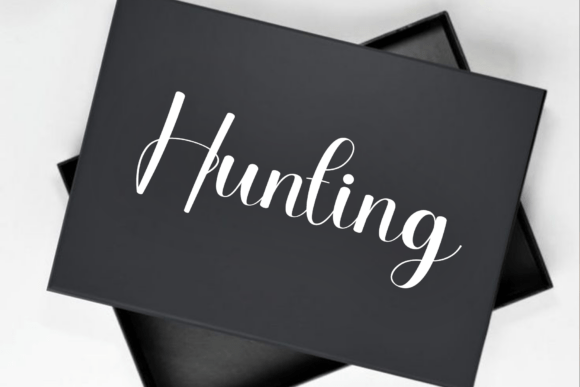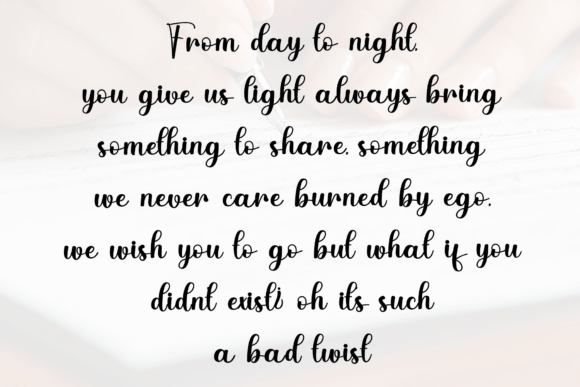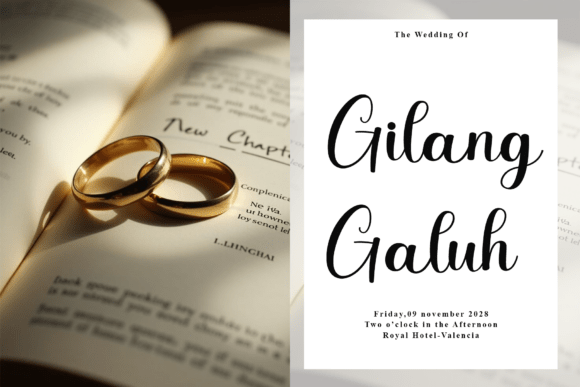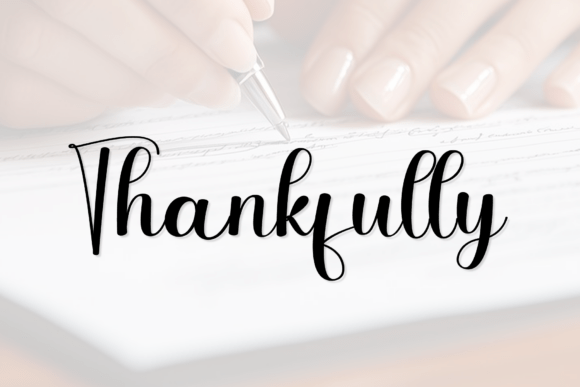
Introduction to Signatur Engagement Font
As a designer, there’s no thrill quite like landing on the perfect font for your creative project. It’s that moment when all the pieces fall into place, and your vision takes shape. You’ve spent hours scouring design resources, searching for the perfect combination of style and sophistication. And then, you stumble upon it – the Signatur Engagement Font.
This elegant script font is a game-changer for designers, offering a unique blend of calligraphic flair and organic charm. Its sweeping, looping ascenders create a sense of customized artistry that’s hard to find in other fonts. Whether you’re working on a high-end lifestyle marketing campaign or designing packaging for a boutique product, the Signatur Engagement Font is sure to elevate your design to new heights.
Key Features of Signatur Engagement Font
- High-quality, professional font designed for creative projects, including wedding invitations, event branding, and more.
- Transparent background, allowing for seamless integration with your design and minimizing the risk of unwanted background elements.
- Includes a range of font styles, from elegant and sophisticated to playful and whimsical, ensuring you find the perfect fit for your project.
- Perfect for use in digital and print designs, including social media graphics, business cards, and marketing materials.
Honest Review: Signatur Engagement Font
I recently had the chance to work with the Signatur Engagement Font, and I must say it’s been a game-changer for my design projects. The high quality of the font is evident from the moment you download it, with crisp lines and smooth curves that make it perfect for any creative project.
One of the things I love about the Signatur Engagement Font is its versatility. It’s suitable for a wide range of design styles, from elegant wedding invitations to playful social media graphics. Plus, it’s available for free download, making it an excellent resource for designers on a budget.
- ✨ Versatile font that works well for various design styles
- ✨ Transparent background, making it easy to customize
- ⚠️ Limited character set, which may not be ideal for longer text
- ⚠️ May not be suitable for professional or formal designs
Overall, I’m impressed with the Signatur Engagement Font. It’s a great addition to any designer’s toolkit, and I’d highly recommend it for any creative project. Just be aware of its limitations, and you’ll be good to go!
Tips for Getting the Most Out of the Signatur Engagement Font
Use the transparent background feature to create a seamless design.
Experiment with different font sizes and styles to add visual interest.
Combine the Signatur Engagement Font with other design elements for a unique look.
The Signatur Engagement Font is ideal for:
Marketing materials, such as brochures and flyers.
Q: What makes the Signatur Engagement Font a high-quality design resource?
The Signatur Engagement Font is a high-quality design resource due to its unique and creative design, making it perfect for various design projects. The font also features a transparent background, allowing for easy customization and integration into your designs. Our team of expert designers has carefully crafted the font to ensure that it meets the highest standards of quality and functionality.